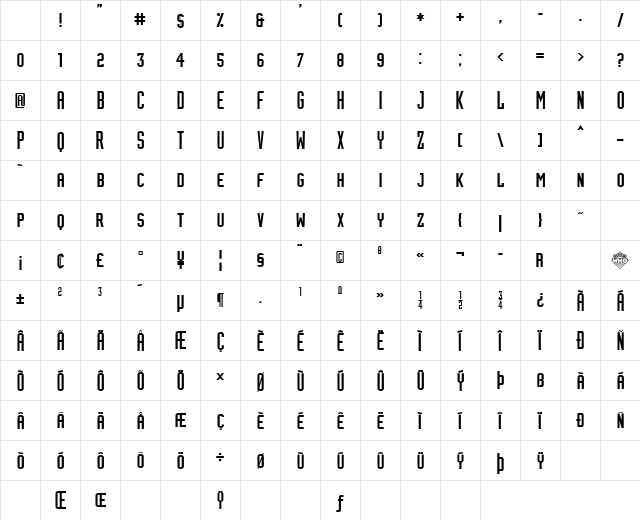
Assiduous SmallCaps Free Font
Assiduous SmallCaps
Style: SmallCaps
Design Context for Assiduous
Assiduous is a composed and adaptable typeface that performs quietly and consistently across a wide range of design contexts.